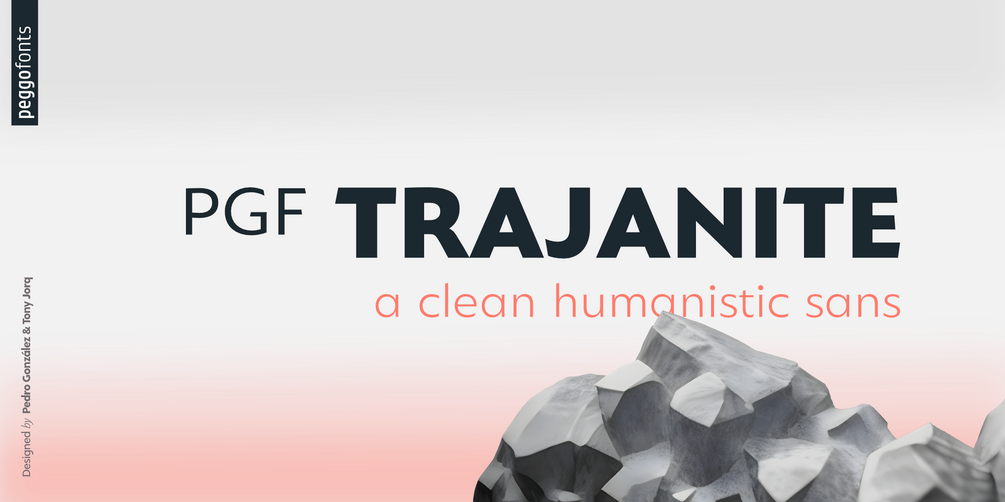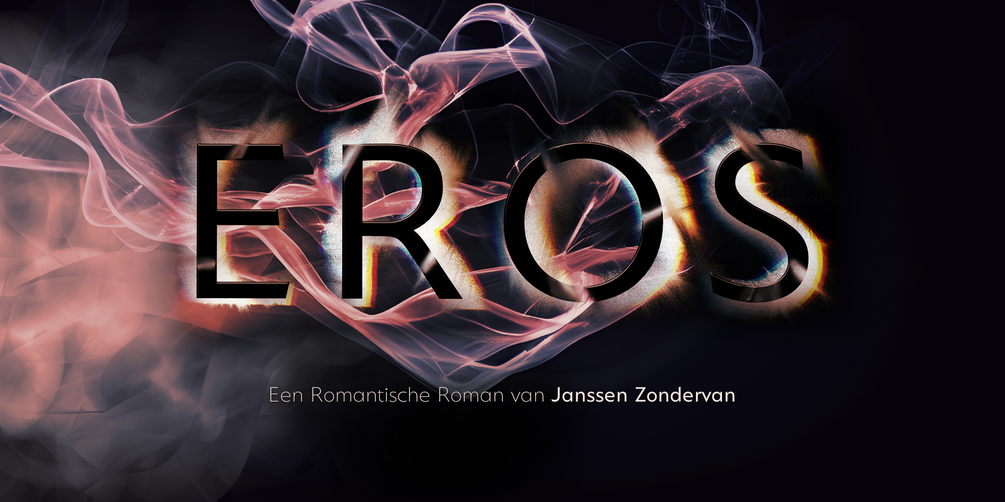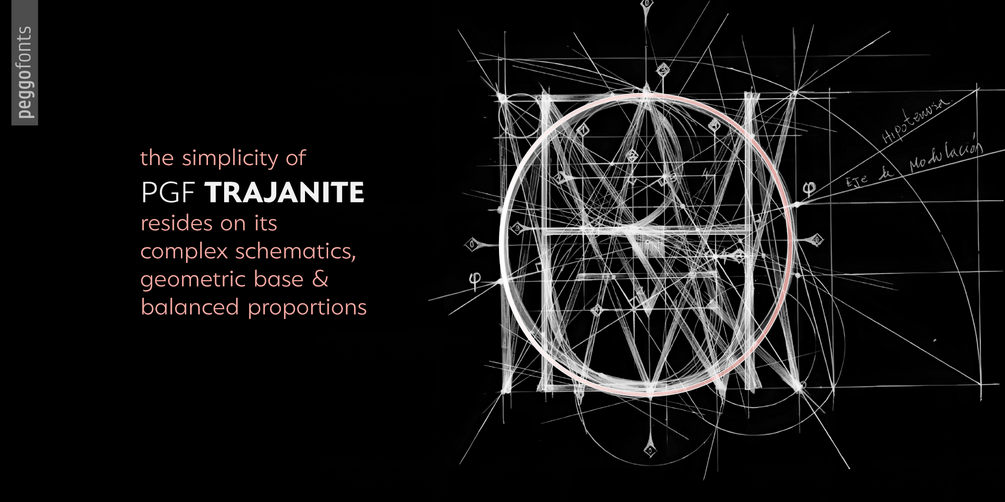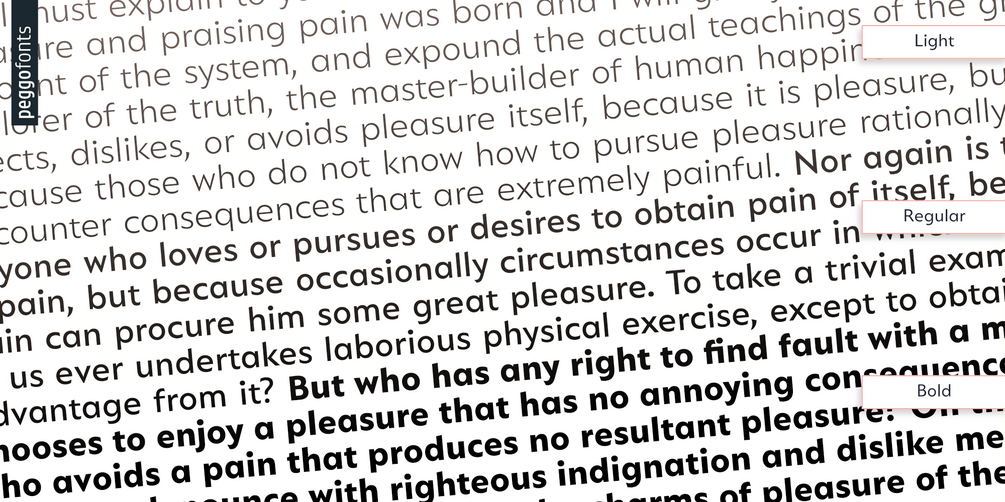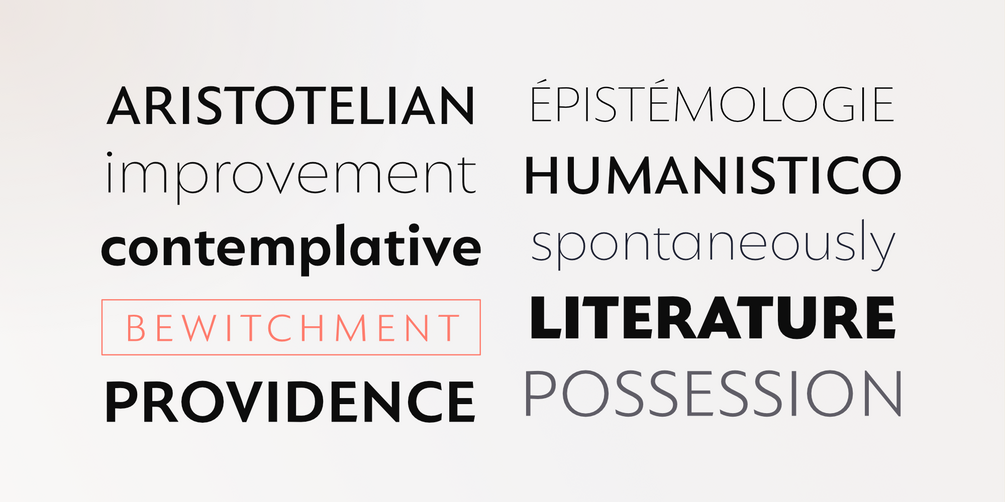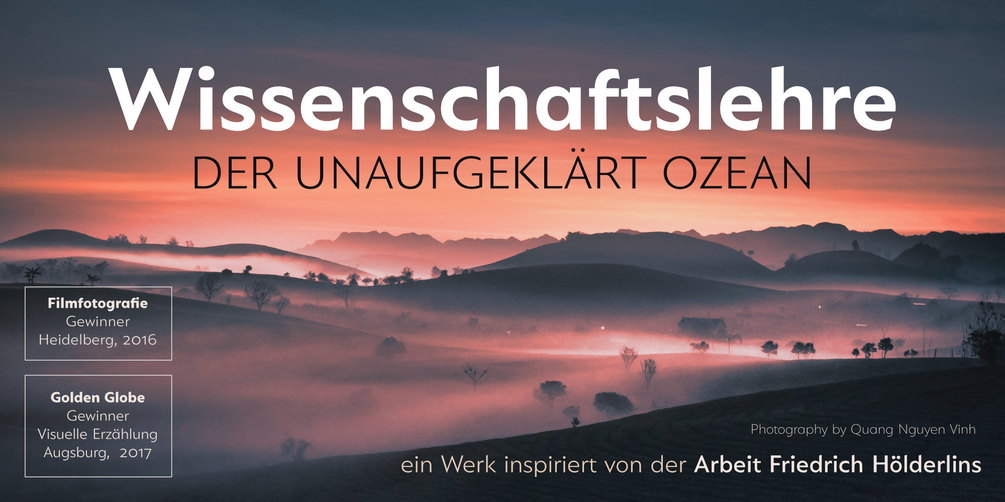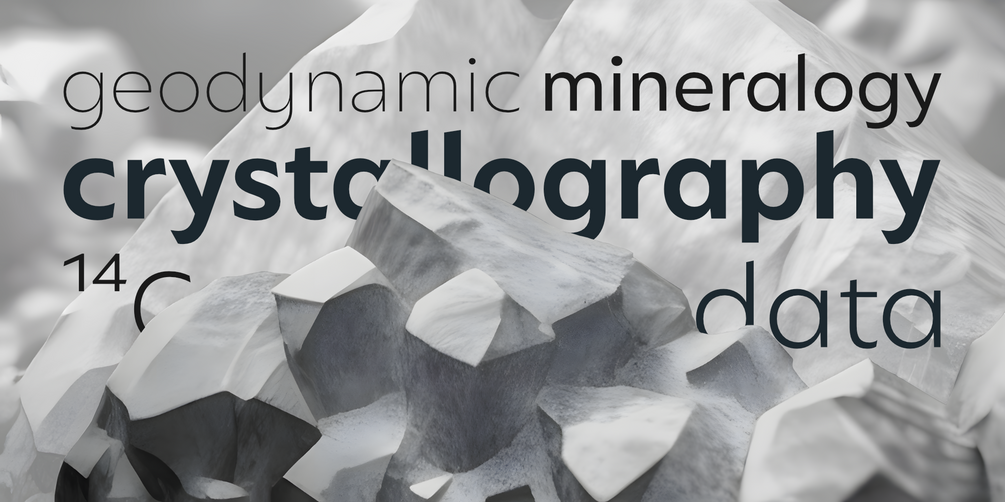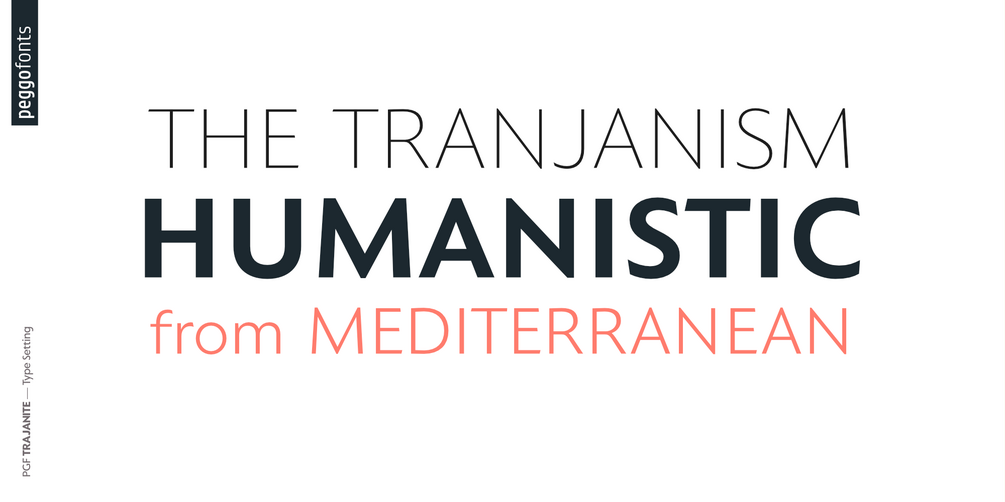
PGF Trajanite
“PGF-Trajanite” is a simple Roman typeface, with capital letters inspired on classical Trajan schemmas such regular square and circle, simple and double root five, early ideas based on the golden ratio, while lowercase have more organic but yet balanced proportions with short ascenders/descenders stems allowing more air to flow between textlines, both (capitals and lowercases) optically adjusted to deliver a better reading experience.
Due to simple and universal look it result in versatile typeface perfectly suitable for branding, packaging, label design, UI Interface design. Include standard and discretionary ligatures, alternate glyphs, oldstyle numers, various numerical arrangements. Altogether you will find this a very clean, fashionable, and elegant typeface.